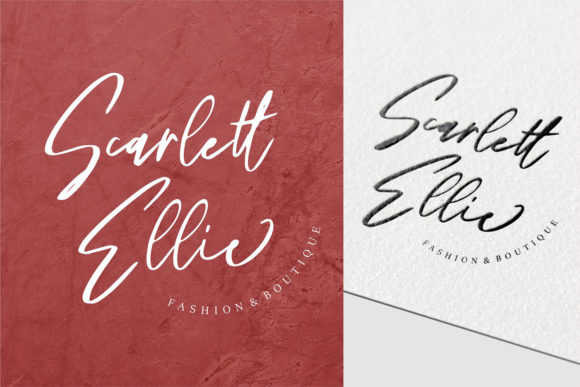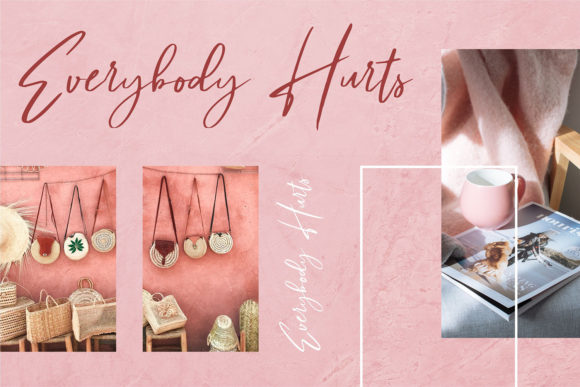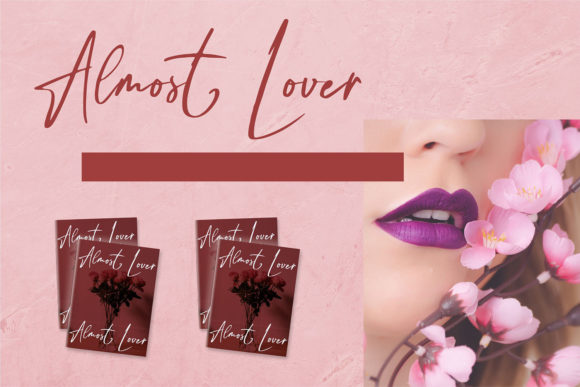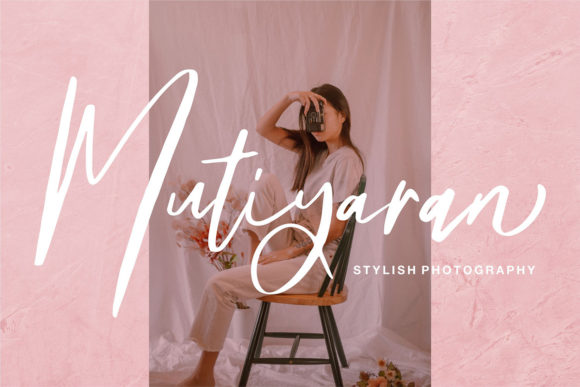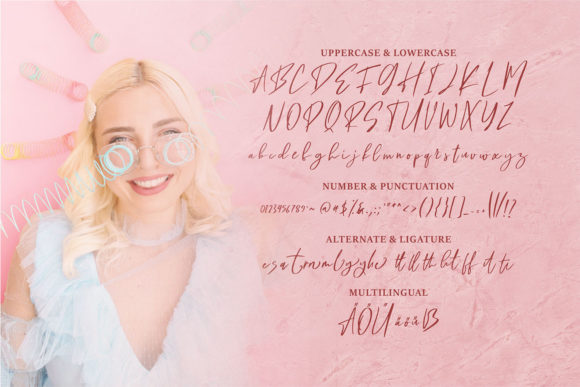
The Designer’s Delight: Uncovering the Elegance of Gabriyel Font
I’ll never forget the moment I stumbled upon Gabriyel Font while working on a branding project for a luxury client. I had spent hours scouring the internet for the perfect font, but nothing seemed quite right. That was until I saw Gabriyel – its elegant, handwritten curves and balanced letters immediately caught my eye. I knew right then and there that I had found the one. ✨
As a designer, I’m always on the lookout for fonts that can elevate my projects. Gabriyel Font has become a staple in my collection, and here’s why:
- ✨ Elegant and stylish: Gabriyel’s unique, handwritten aesthetic adds a touch of sophistication to any design.
- ✅ PUA encoded: This means I can easily access all the glyphs and swashes, making it a breeze to customize.
- ✅ Well-balanced letters: The font’s carefully crafted letters ensure that my designs look polished and professional.
Of course, no font is perfect, and Gabriyel has a few minor quirks:
- ⚠️ Limited use in body text: While Gabriyel is stunning in headlines and titles, it may not be the best choice for longer blocks of text.
- 🤔 Some swashes may not work well in smaller sizes: While the swashes are a beautiful addition, they can get lost in smaller font sizes.
The Story Behind Gabriyel Font
Gabriyel Font was created with the intention of capturing the essence of elegant, handwritten typography. While I couldn’t find much information on the font’s origins, I like to imagine that it was crafted by a skilled type designer who poured their heart and soul into creating a truly beautiful font. 💫
| Font Name | Gabriyel Font |
| Author | Vunira |
| What is PUA encoding, and how does it benefit Gabriyel Font? | PUA (Private Use Area) encoding allows designers to access a font’s glyphs and swashes easily. In the case of Gabriyel Font, PUA encoding makes it simple to customize and tailor the font to specific design needs. |
| Is Gabriyel Font suitable for body text? | While Gabriyel Font is stunning in headlines and titles, it may not be the best choice for longer blocks of text. Its elegant, handwritten aesthetic may be too ornate for body text, and a clearer font may be more suitable. |